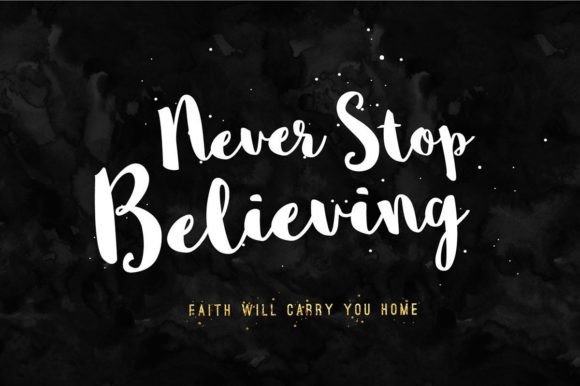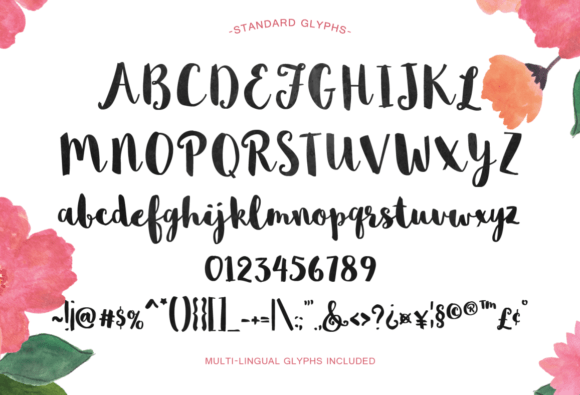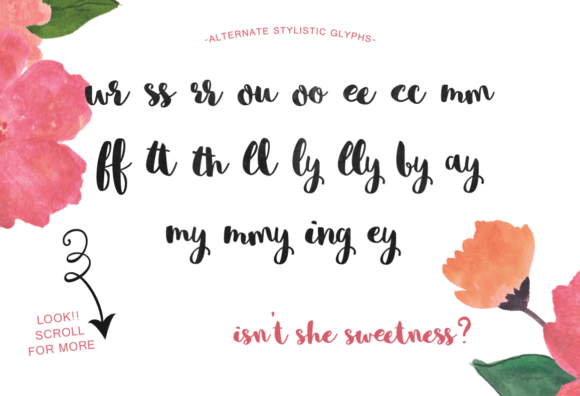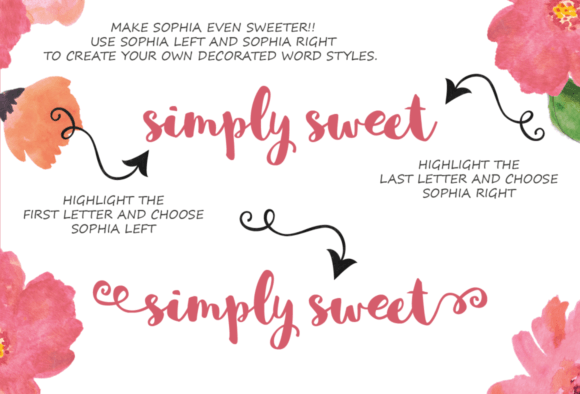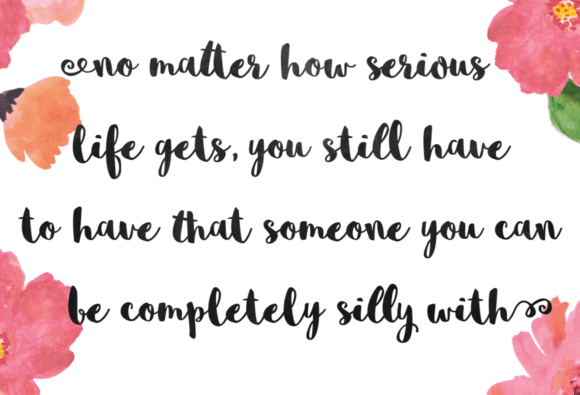
Sophia Font
About Sophia Font
Allow me to introduce Sophia! She’s not just a typeface; she’s a personality—sweet, saucy, and a touch shabby. Sophia brings a fresh, hand-lettered brush style to your projects, adding a unique flair that’s both charming and versatile. But that’s not all—Sophia comes with a delightful bonus: two additional ornamental extra font files named Sophia Left and Right. These extras empower you to create your own customized word styles, making your designs truly one-of-a-kind.
Sophia’s hand-lettered brush style is a perfect fit for a range of creative endeavors. Whether you’re working on invitations, signage, branding, or any project that requires a touch of personality, Sophia delivers. The slightly shabby quality adds a hint of rustic charm, making your designs feel authentic and inviting.
Now, let’s talk about the Sweeter Bonus: Sophia Left and Right. These additional fonts open up a world of possibilities for creating beautifully decorated words. Use Sophia Left to add ornaments at the beginning of your words, and Sophia Right to add ornaments at the end. The result? Endless combinations and variations that let your creativity shine. From elegant flourishes to playful details, Sophia Left and Right give you the tools to tailor your designs with precision and flair.
Picture Sophia gracing wedding invitations with her sweet and saucy charm, or imagine her adding a touch of personality to a brand’s logo. The possibilities are as limitless as your creativity.
In essence, Sophia is not just a font; she’s a design companion that brings character and versatility to your projects. With the added bonus of Sophia Left and Right, your creative toolbox expands, enabling you to craft visuals that tell your story with finesse and style. Dive into the world of Sophia and let her be the muse for your next design adventure!